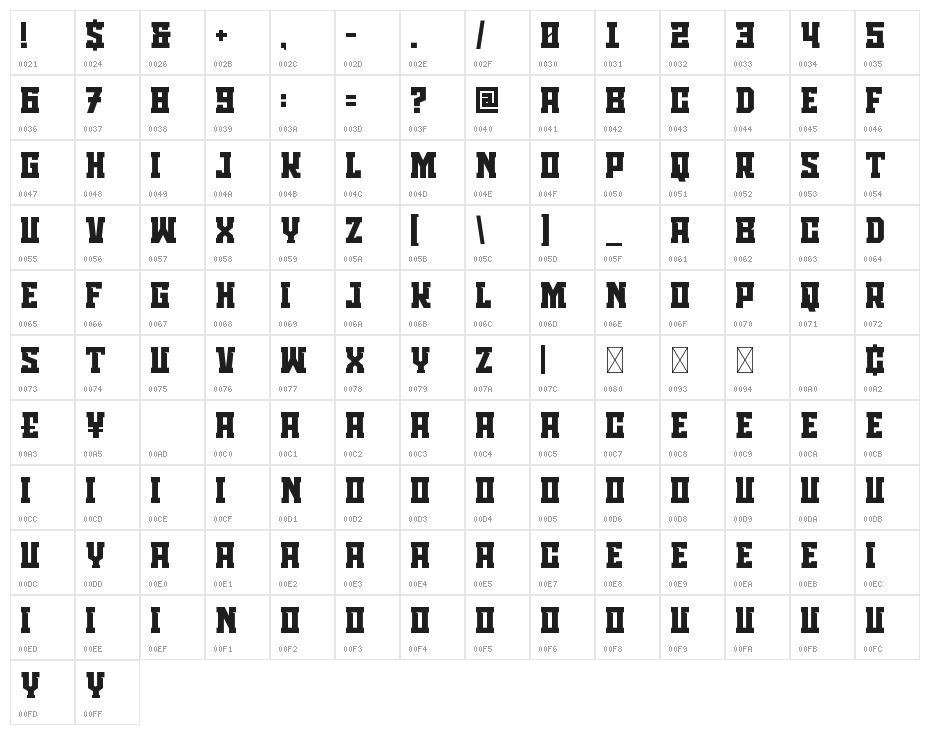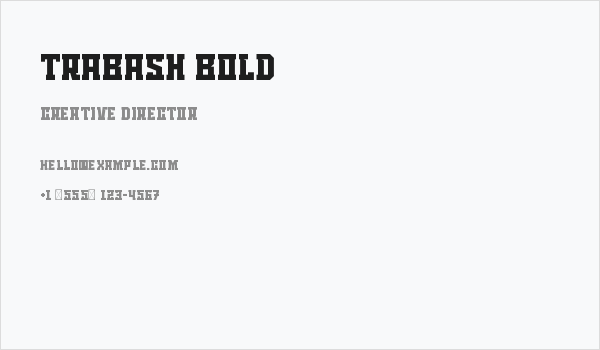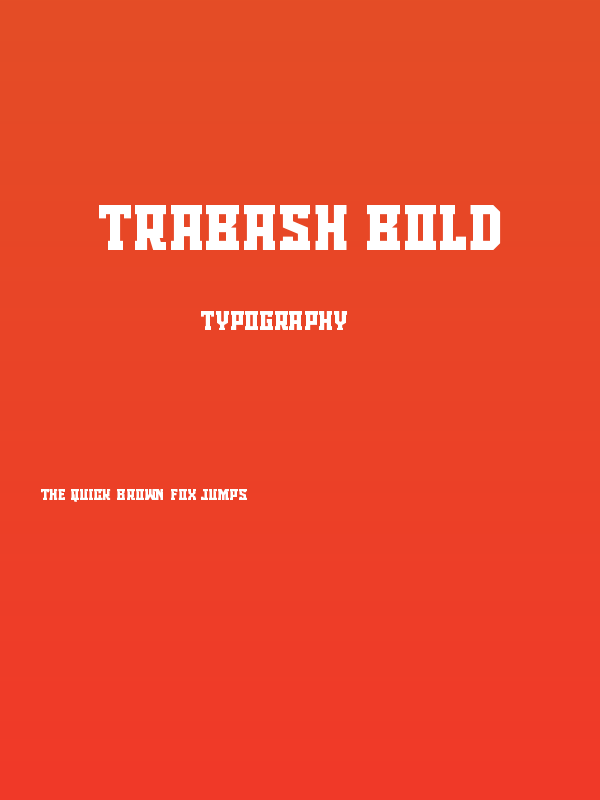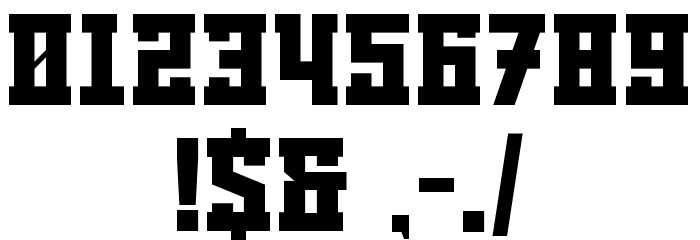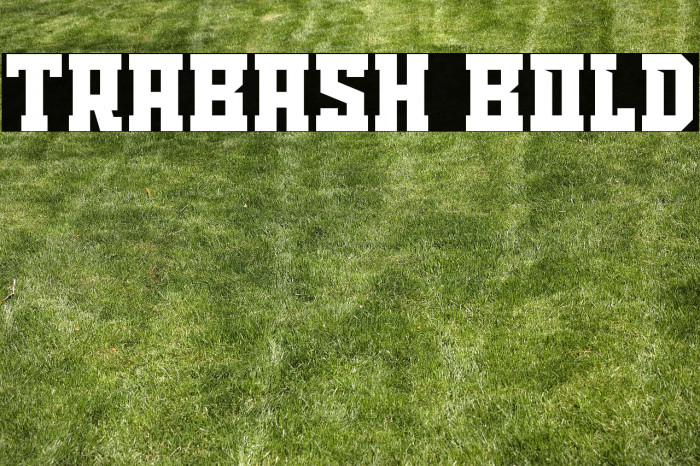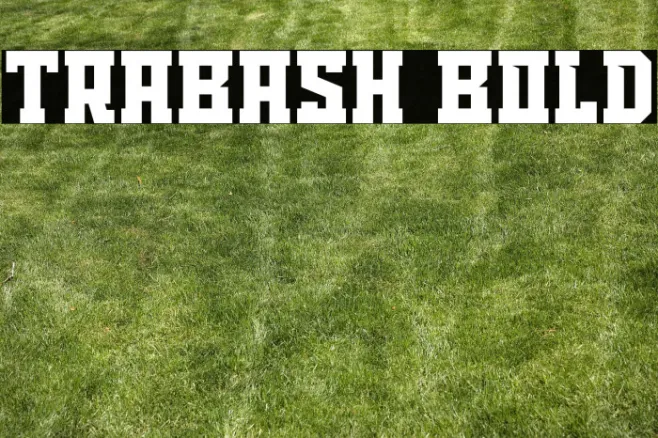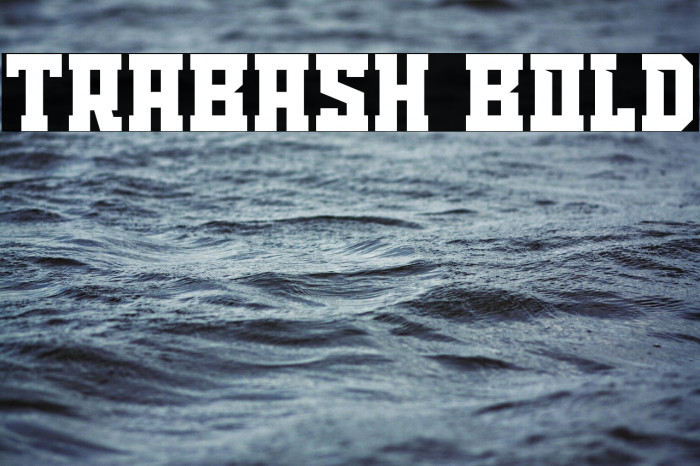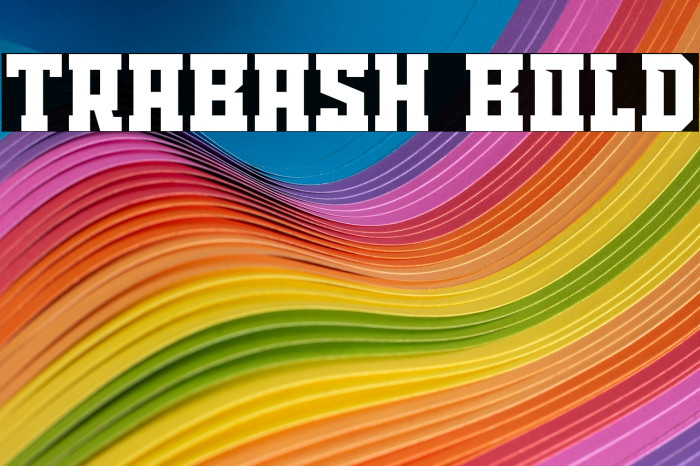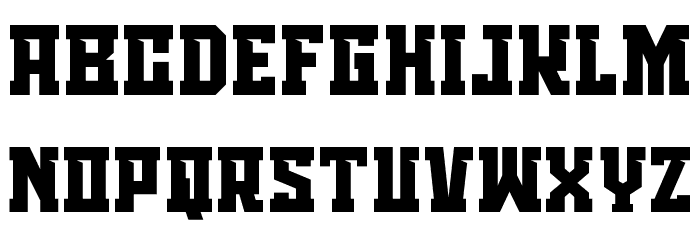
TRABASH Bold Font
TRABASH Bold Description
This font features a bold, geometric design with strong, block-like characters. The uppercase letters are uniform in height, with a consistent width that gives a sense of stability and strength. The lowercase letters maintain the same boldness, ensuring readability and impact. The numbers are equally robust, matching the style of the letters. Special characters are designed to integrate seamlessly with the overall aesthetic, making them suitable for a variety of uses. The font's boldness and geometric shapes make it ideal for attention-grabbing headlines and logos.
| Proposed Projects | Ideal for branding, posters, headlines, and any project requiring a strong visual impact. |